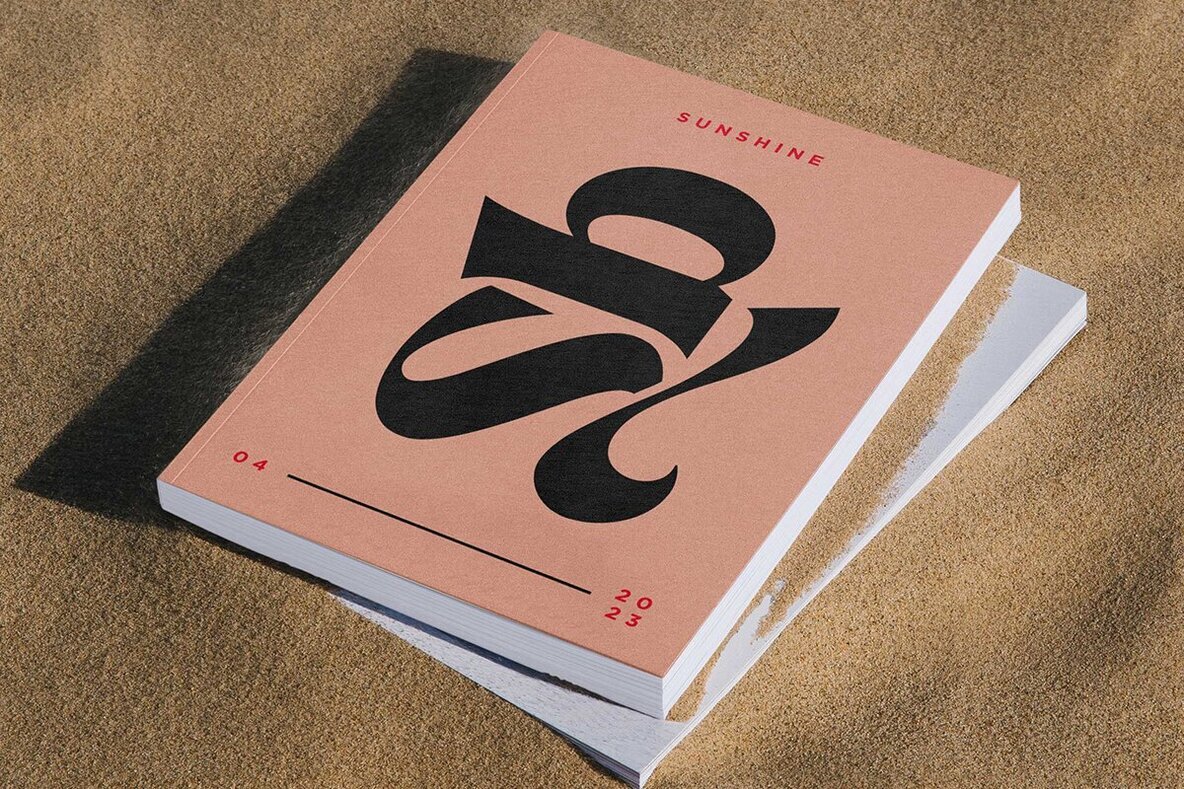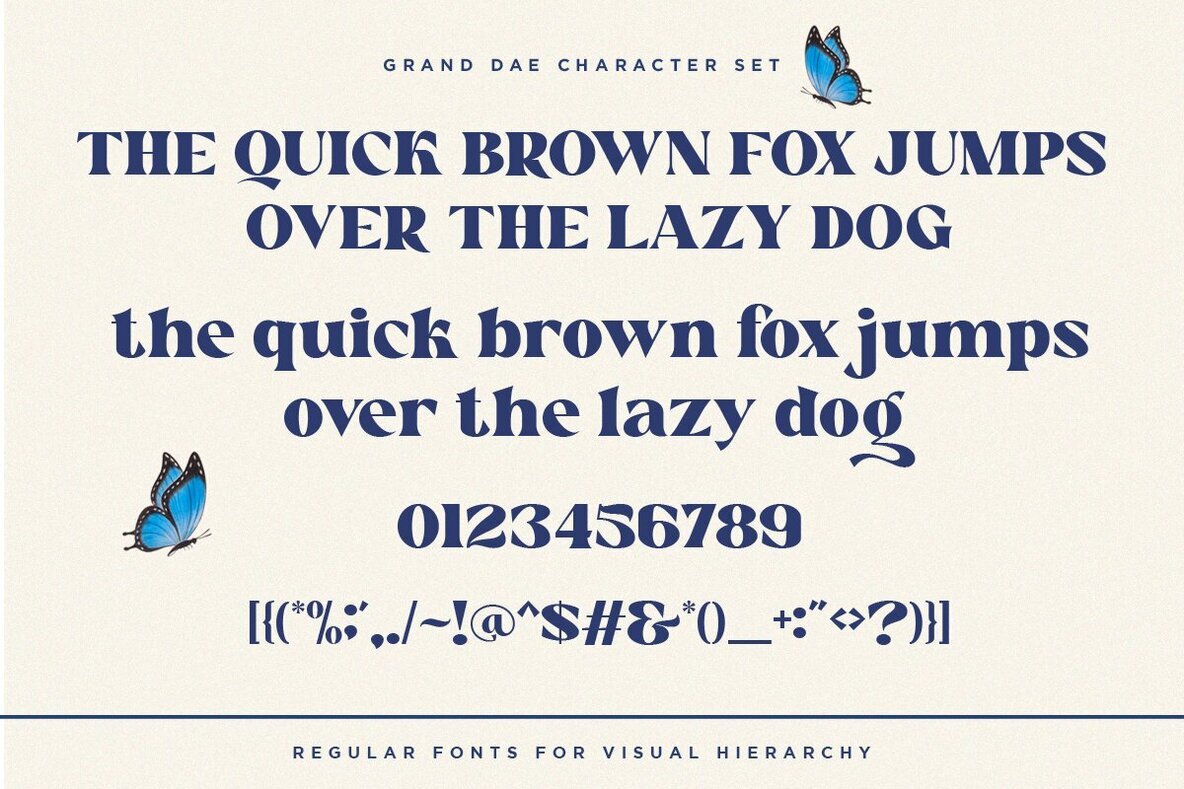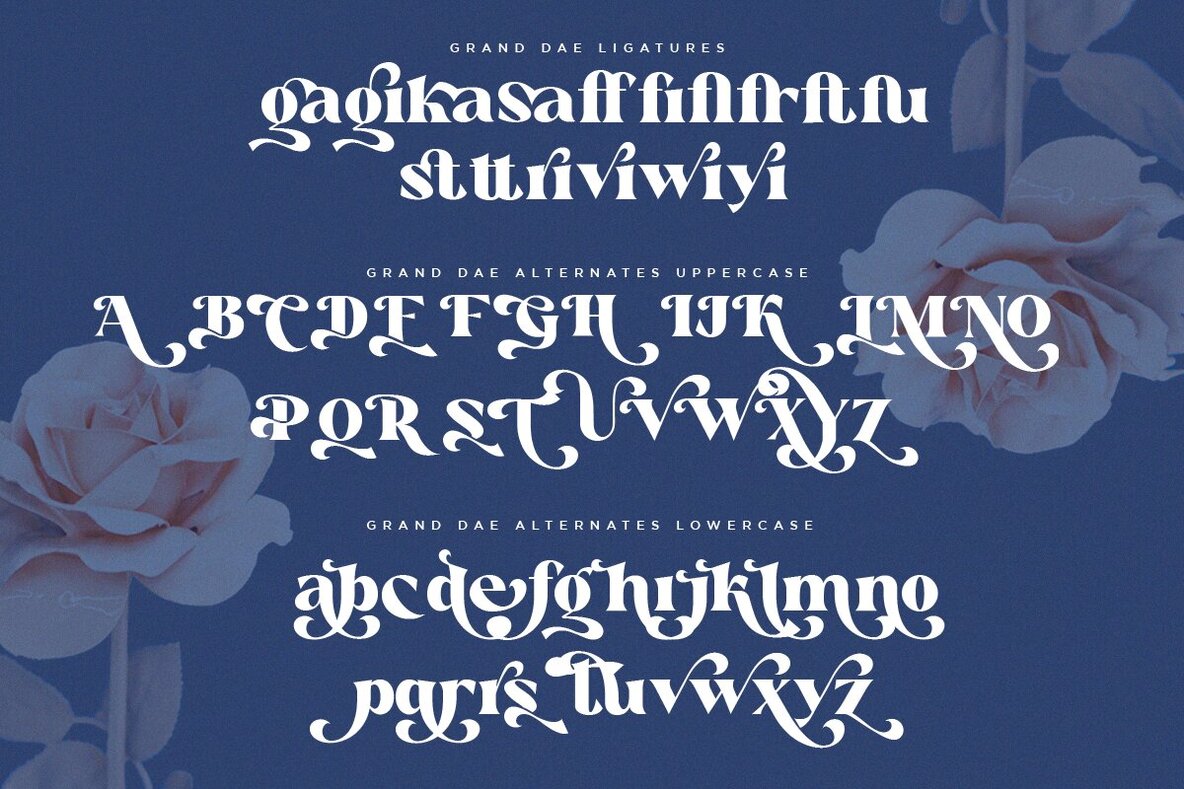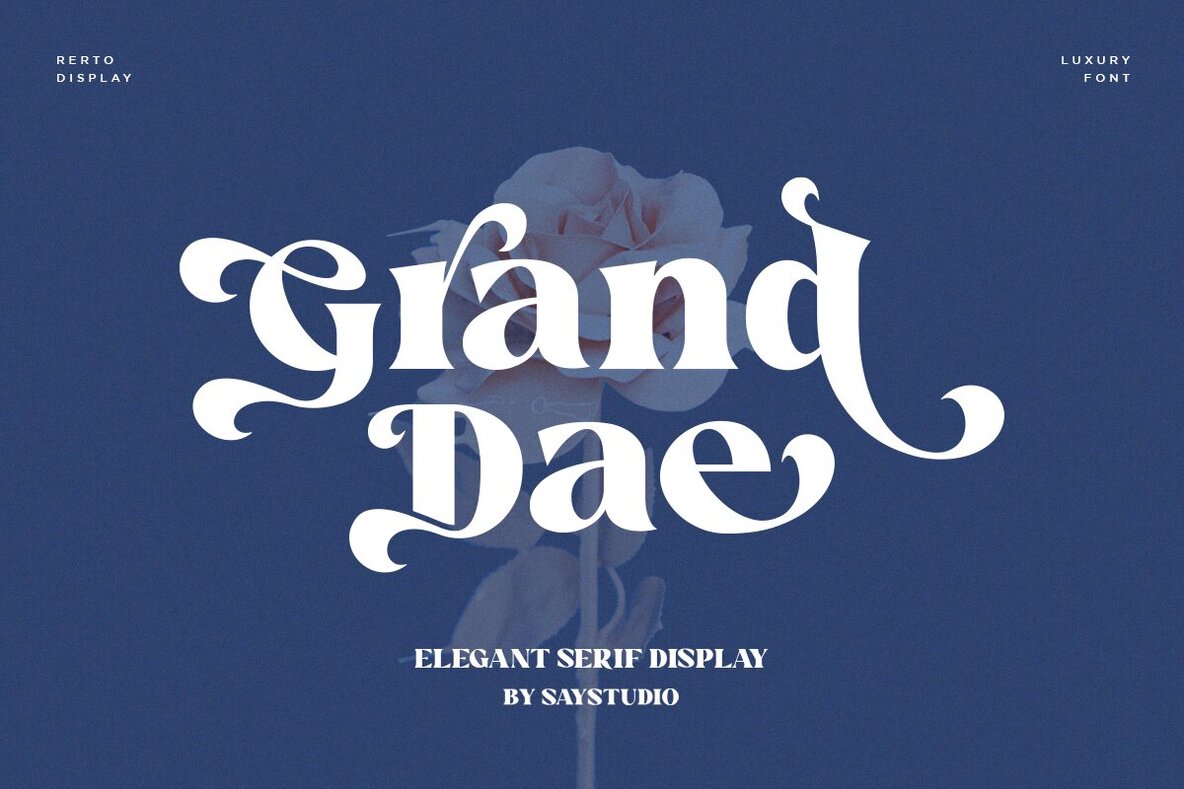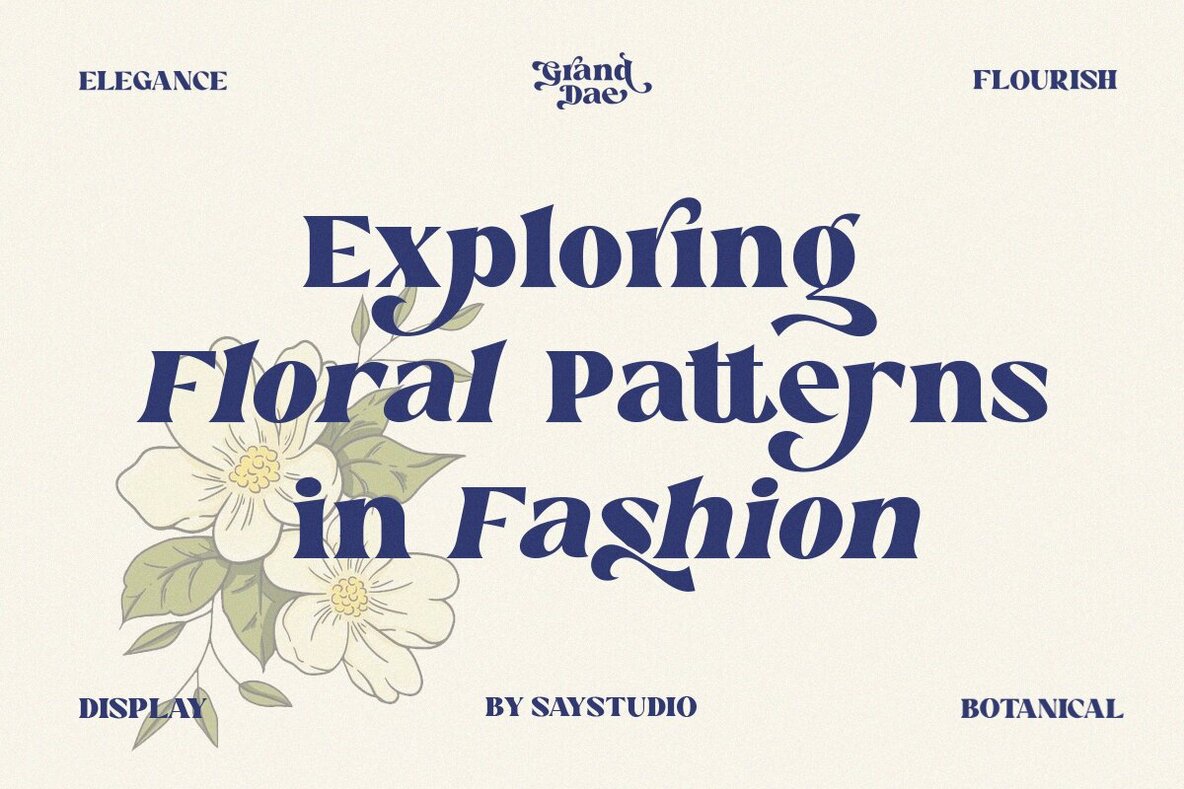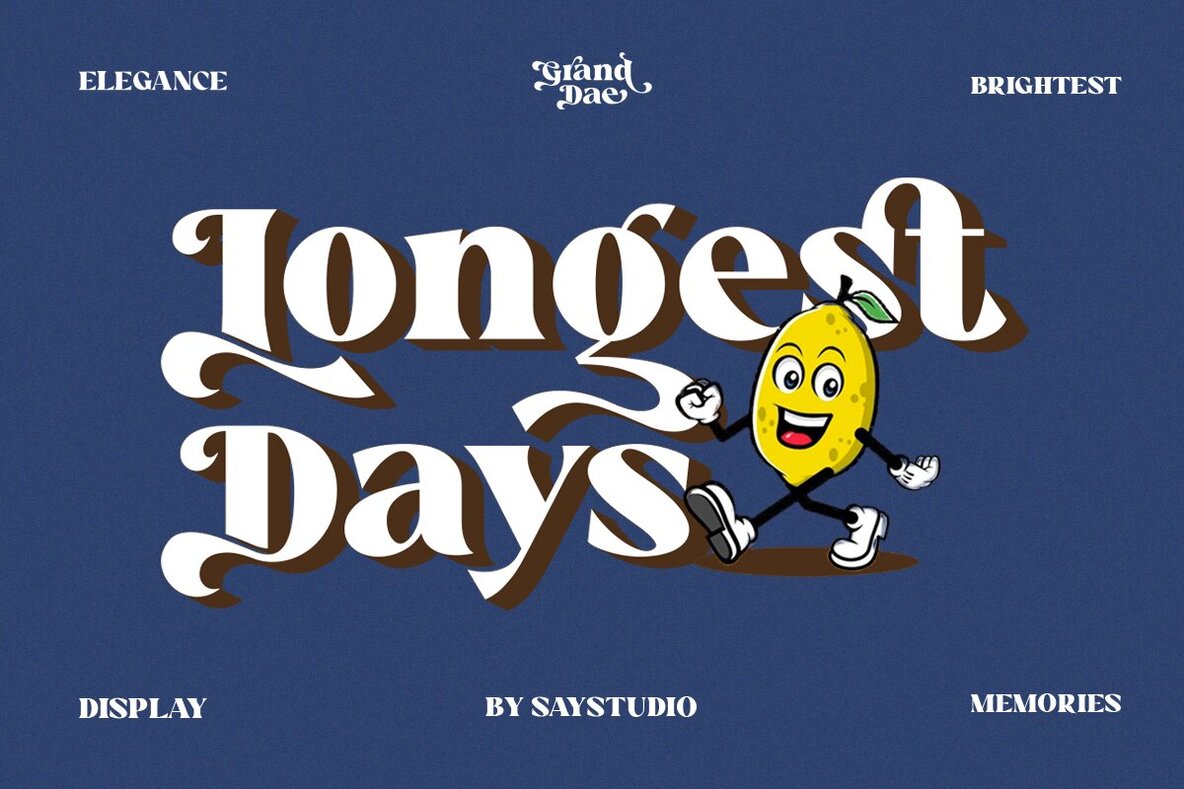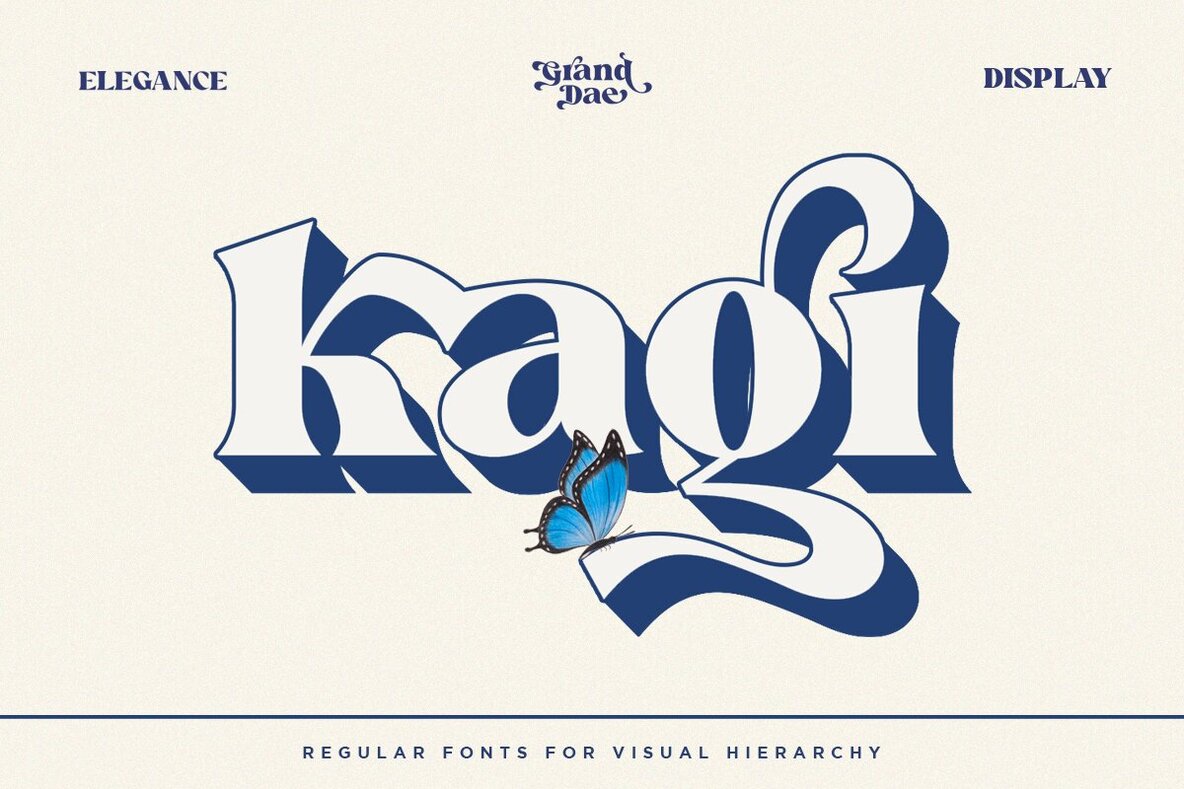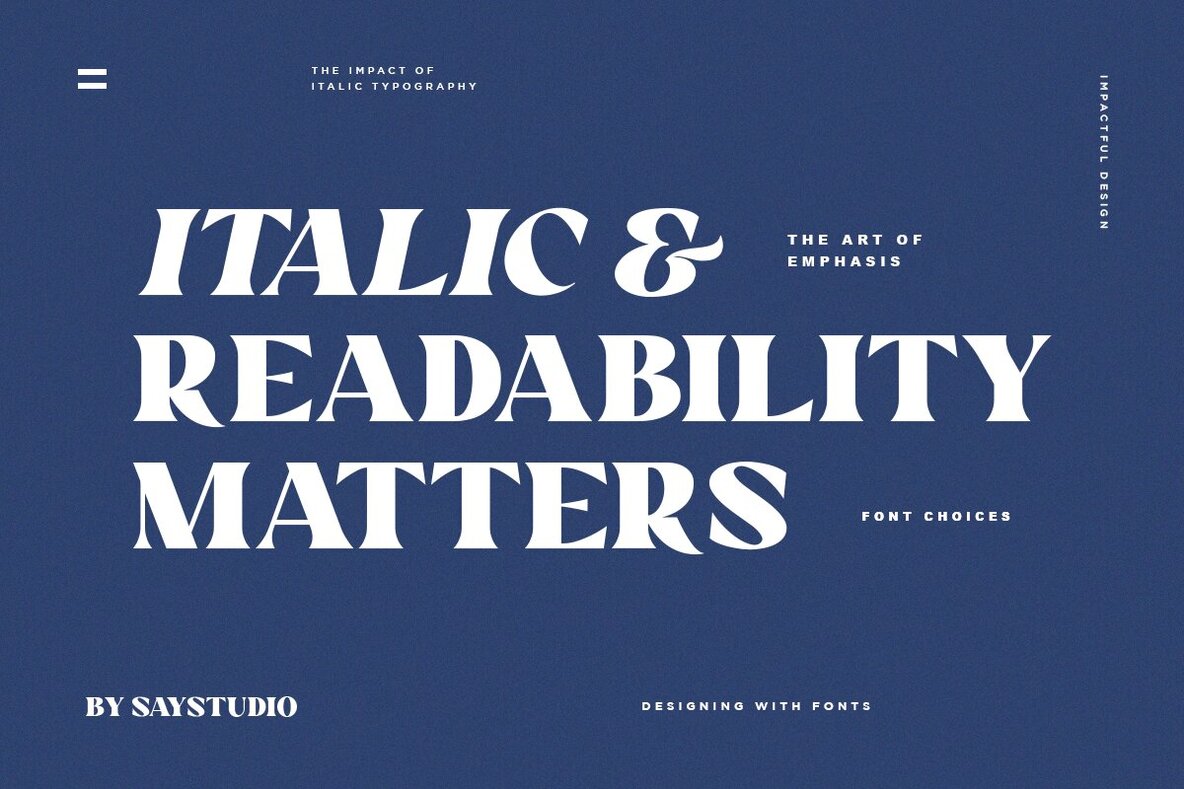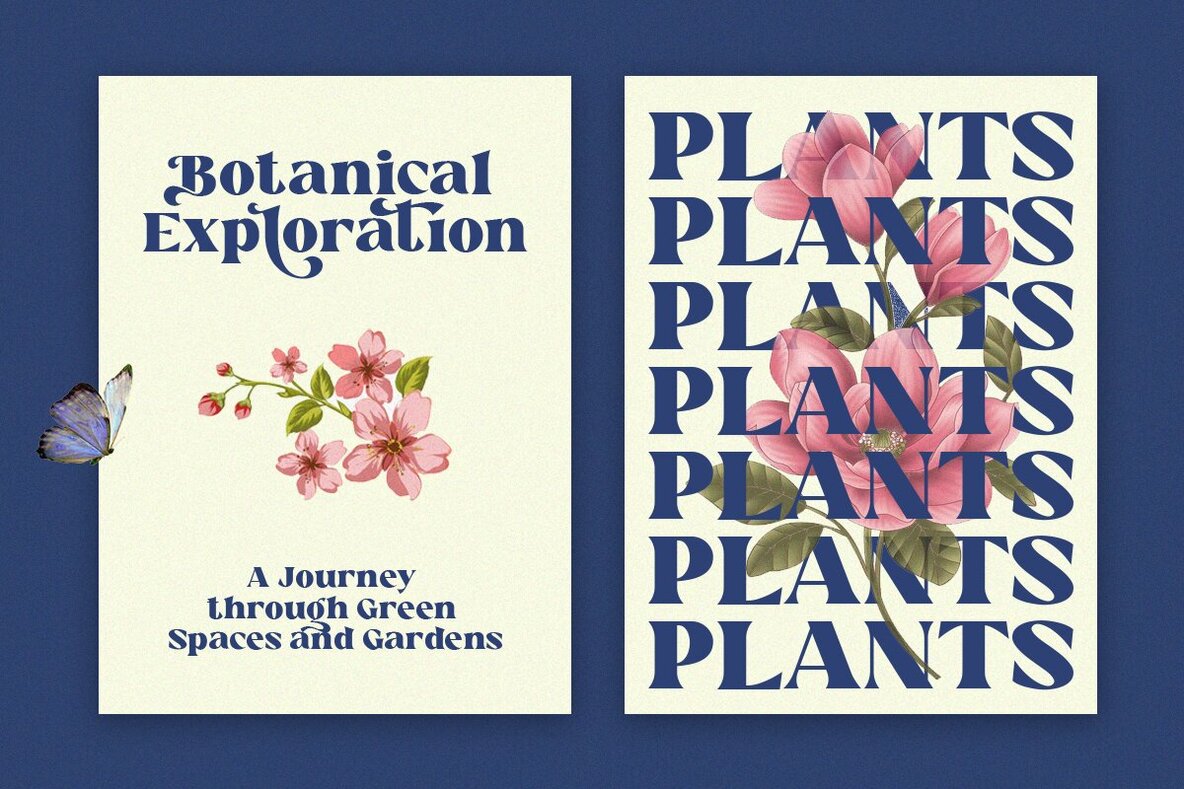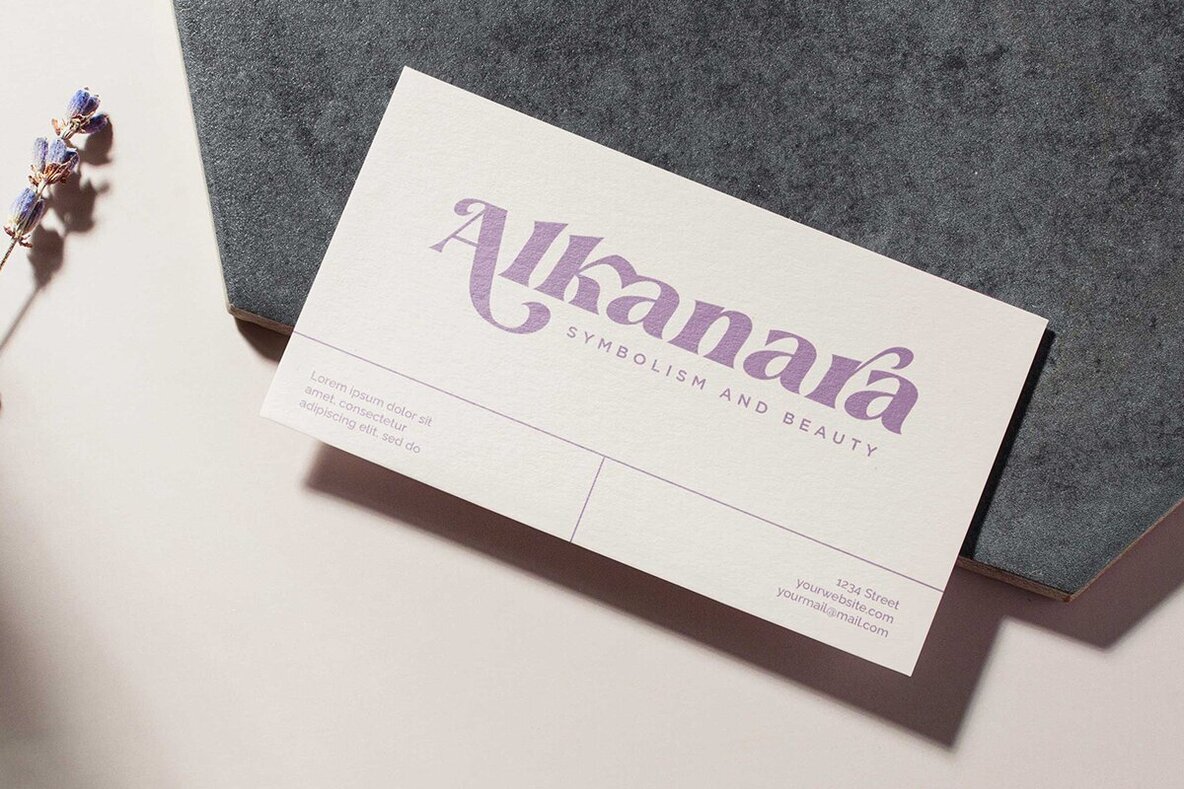
Grand Dae Font
Grand Dae is a modern elegant serif typeface, ideal for a wide range of design applications. This font is perfect for enhancing branding projects, creating standout logos, and designing social media graphics. It's equally suitable for prints, stickers, apparel designs, and SVG files. Grand Dae stands out with its ability to complement various design aesthetics. It beautifully enhances free-spirited, boho-themed designs while also fitting perfectly into sophisticated editorial layouts. Explore a variety of fun stylistic alternates available with this font, easily accessible in design programs such as Photoshop and Illustrator.Grand Dae: A Modern Elegant Serif Typeface
Versatile Design Applications
Unique and Adaptable Style
Stylistic Alternates